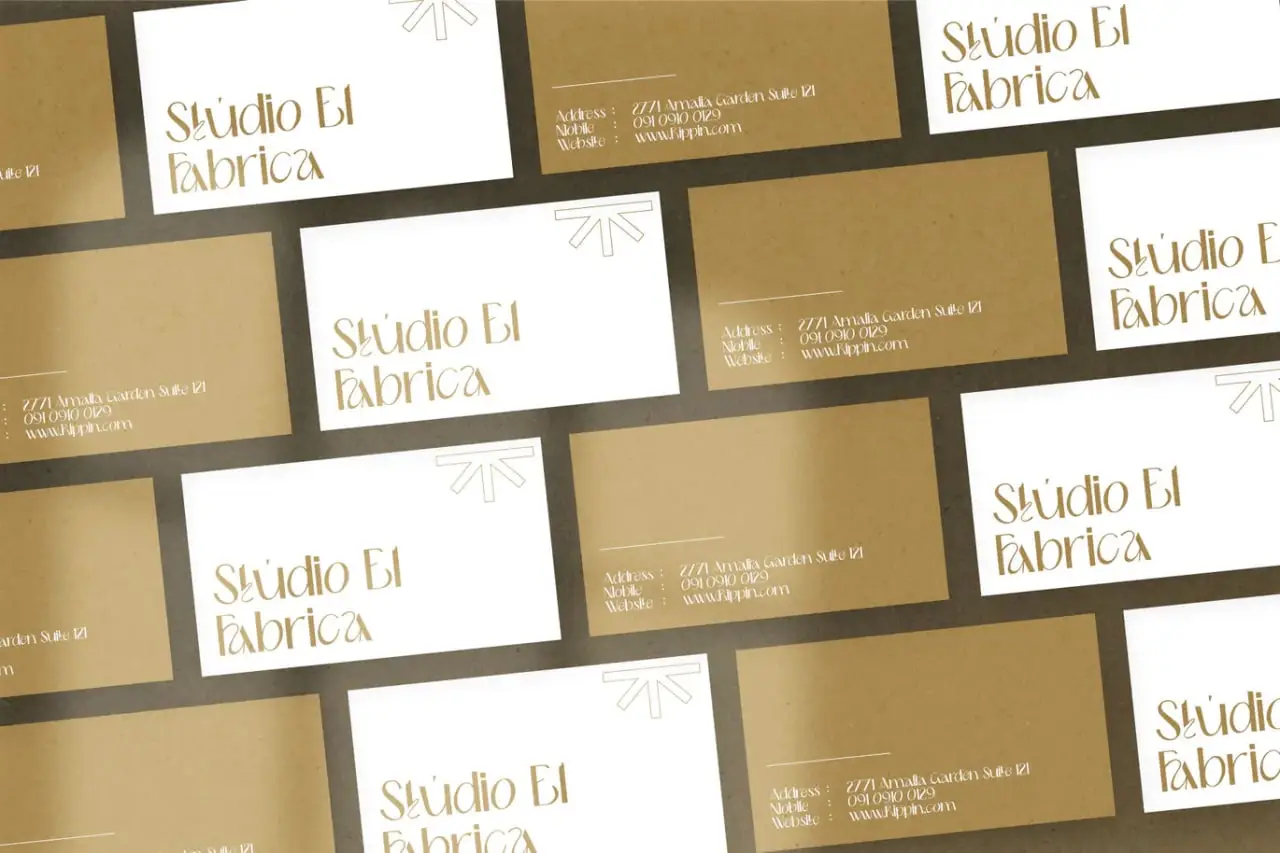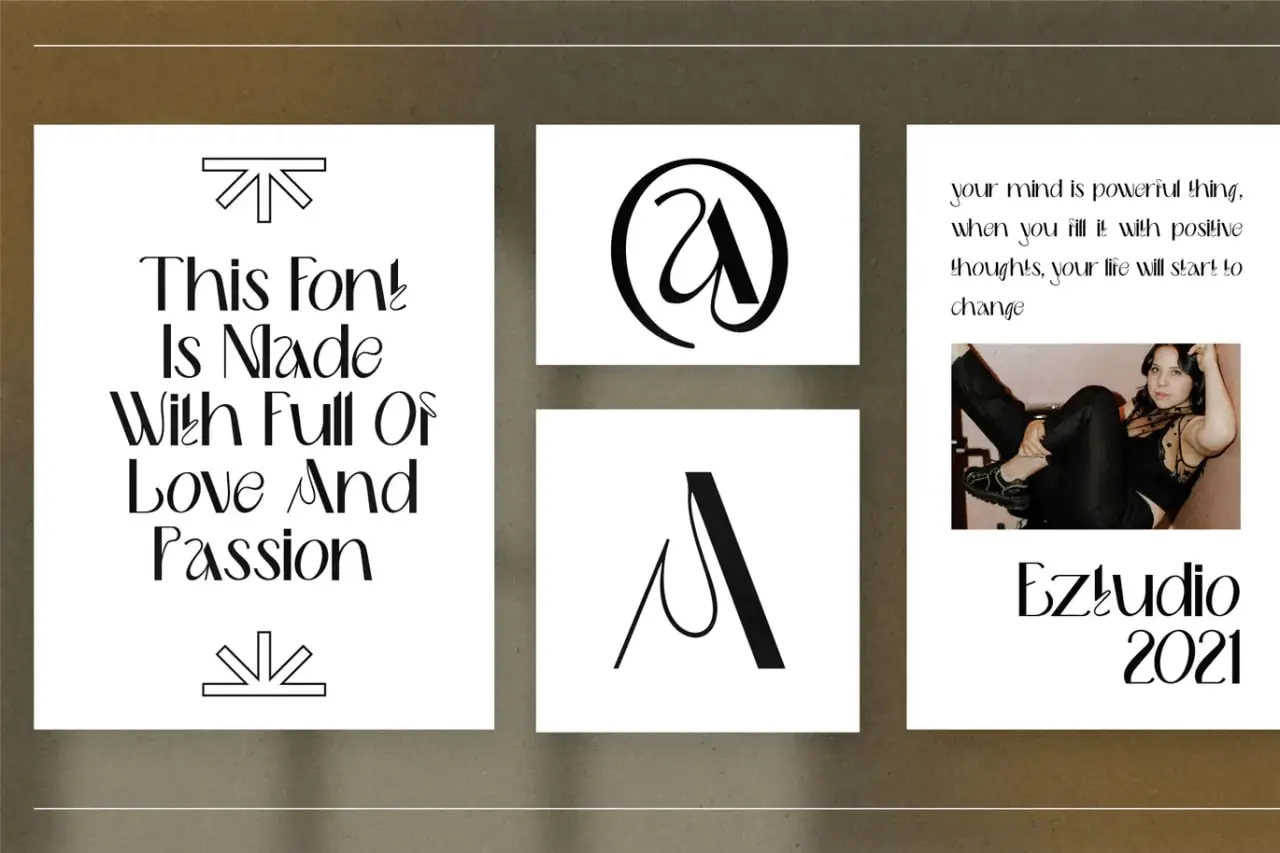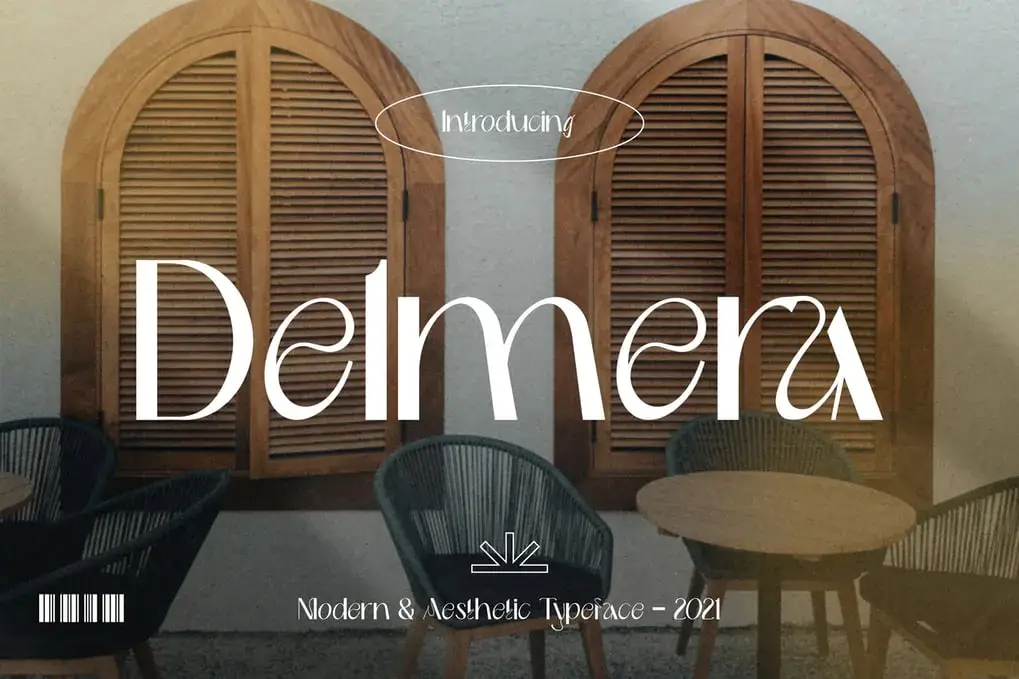
Eztudio Modern & Aesthetic Delmera Font
The Eztudio Modern & Aesthetic Delmera Font is a beautifully crafted typeface that combines elegance with contemporary design. Perfect for a variety of applications, this font adds a touch of sophistication to your projects.
• Stylish modern design
• Great for web design and user interfaces
• Perfect for print projects such as invitations and posters